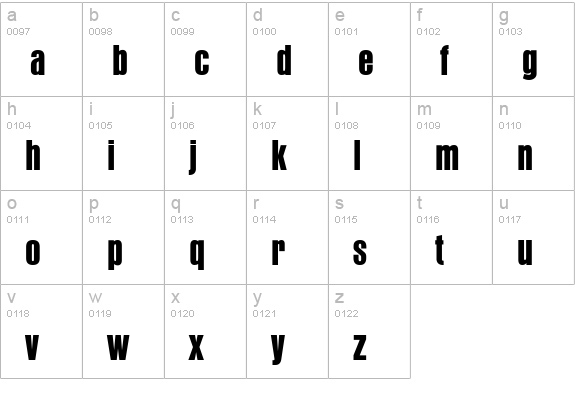
PFFusionSans Heavy is a heavy, high-impact variant in the PFFusionSans typeface family \xE2\x80\x94 well suited to high-impact headlines, posters, and display advertising.
PFFusionSans Heavy is a bold and impactful font that exudes strength and modernity. Its sturdy letterforms make a striking statement, perfect for headlines, titles, and branding projects that demand attention. The thick strokes and clean lines of PFFusionSans Heavy give it a bold presence on the page, making it a versatile choice for a variety of design applications. The best part about PFFusionSans Heavy is that it is completely free to download at FontsMarket.com. Whether you're a designer looking to add a powerful touch to your projects or a business owner seeking a strong visual identity, PFFusionSans Heavy is a fantastic choice that won't break the bank. Download this sleek and stylish font today and take your designs to the next level with its impactful presence and bold aesthetic.